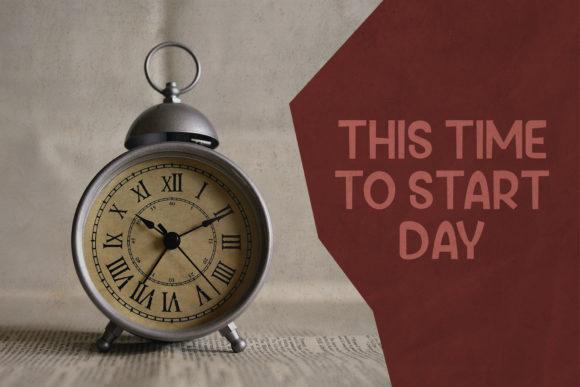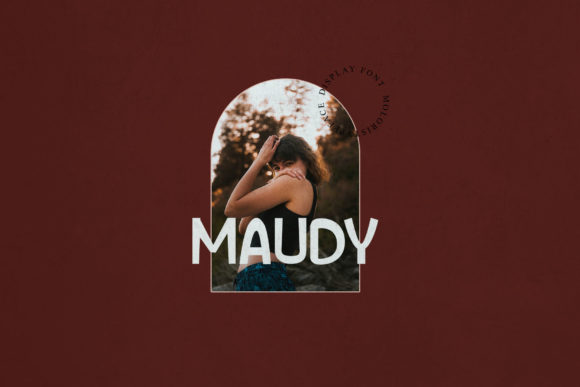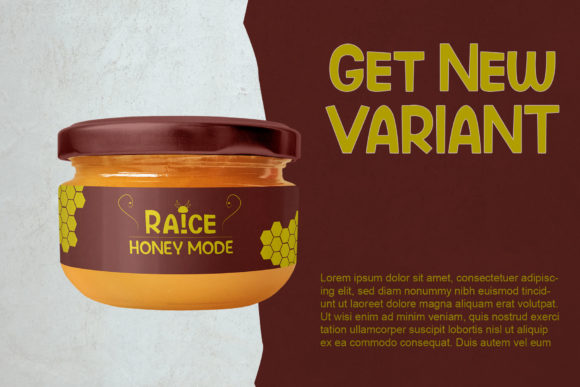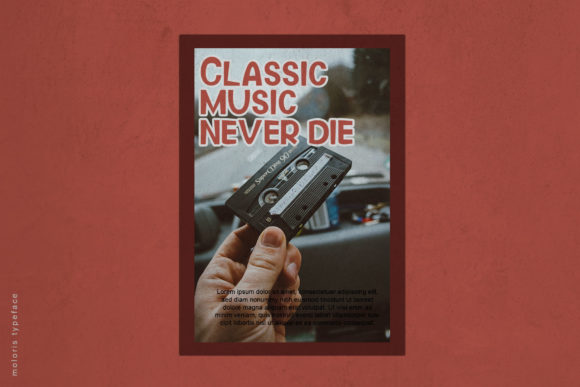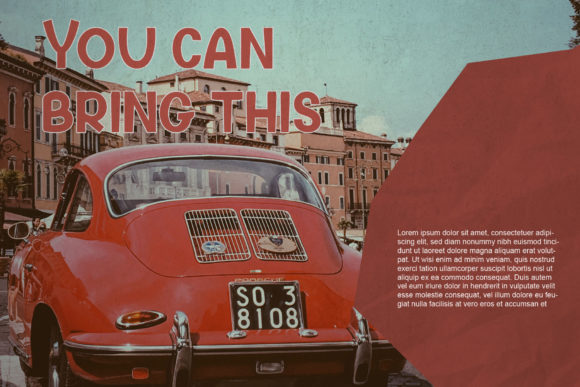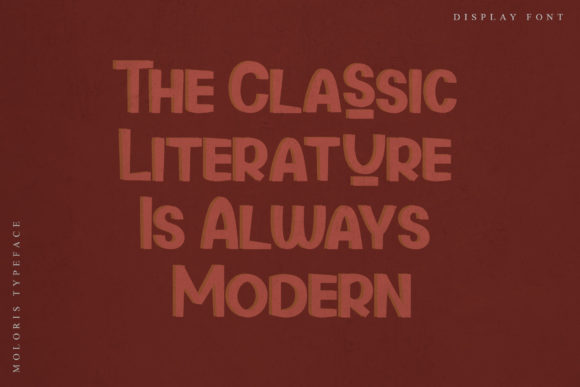
Introduction to Moloris Font Font
Fonts play a crucial role in design, and the Moloris Font font is a typeface that brings both character and versatility to any project. Whether you’re working on a branding project, a website, or a print design, the Moloris Font font offers a unique style that can elevate your work.
Moloris is a cool and neat display font.
It can easily be matched to an incredibly large set of projects that require a casual or trendy touch This font is PUA encoded which means you can access all of the glyphs and swashes with ease.
Key Features of Moloris Font Font
Why Choose Moloris Font Font?
The Moloris Font font is more than just a typeface – it’s a design tool that helps you communicate your message with style and clarity. Its unique character set and versatile design make it suitable for a wide range of applications, from elegant invitations to bold headlines.
With its carefully crafted letterforms and balanced proportions, the Moloris Font font ensures readability and visual appeal across all mediums.
What makes Moloris Font font special?
The Moloris Font font stands out with its unique design, exceptional readability, and versatility across various design applications.